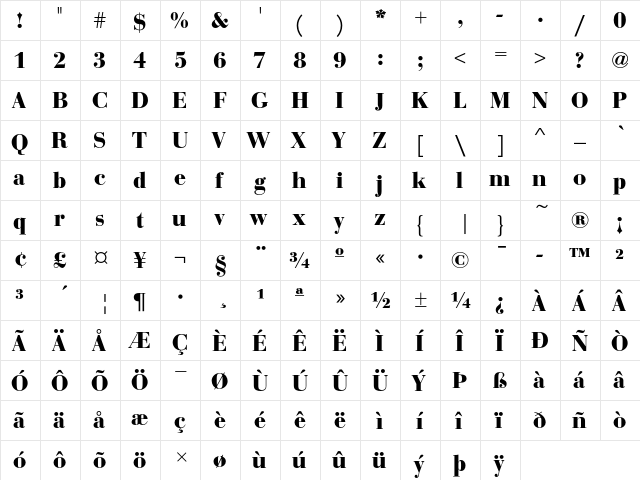
Bauer Bodoni D Bold Font Preview
Bauer Bodoni D Bold
Design Context for Bauer Bodoni D Typeface
Bauer Bodoni D offers clean, dependable letterforms without strong stylistic allegiance, making it a practical choice for designers who need flexibility. Its bold stroke weight gives it real presence on the page.